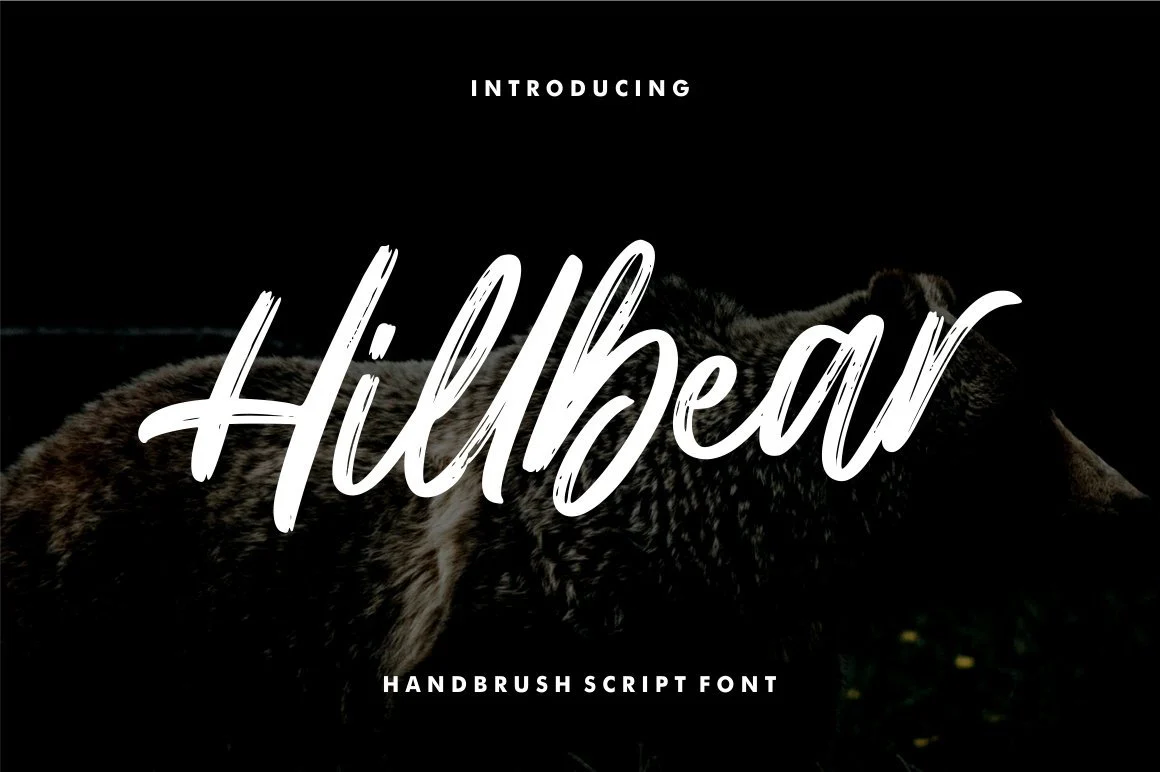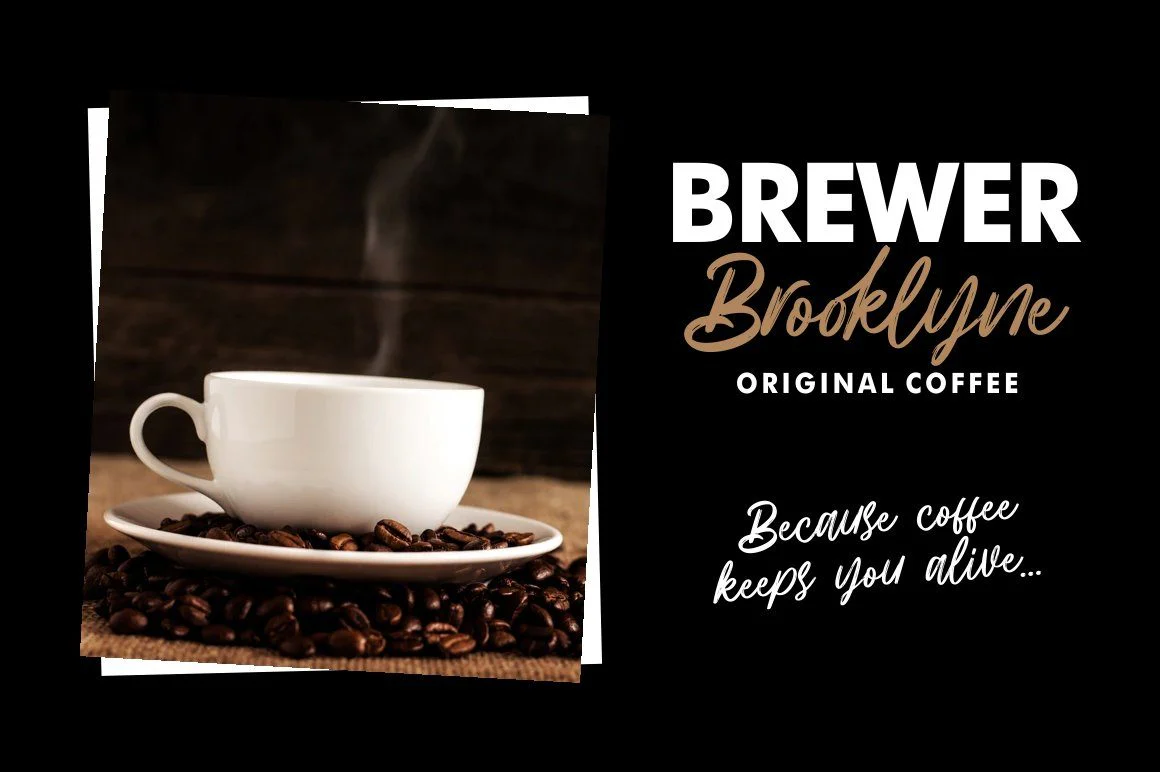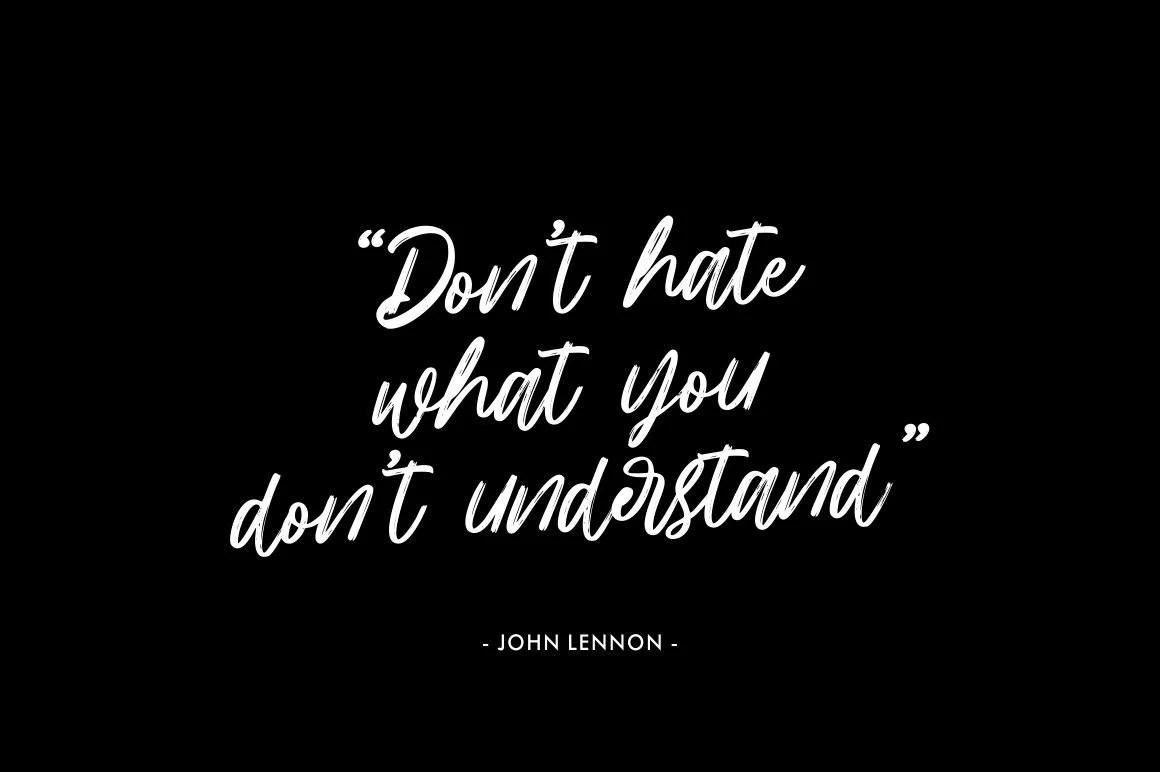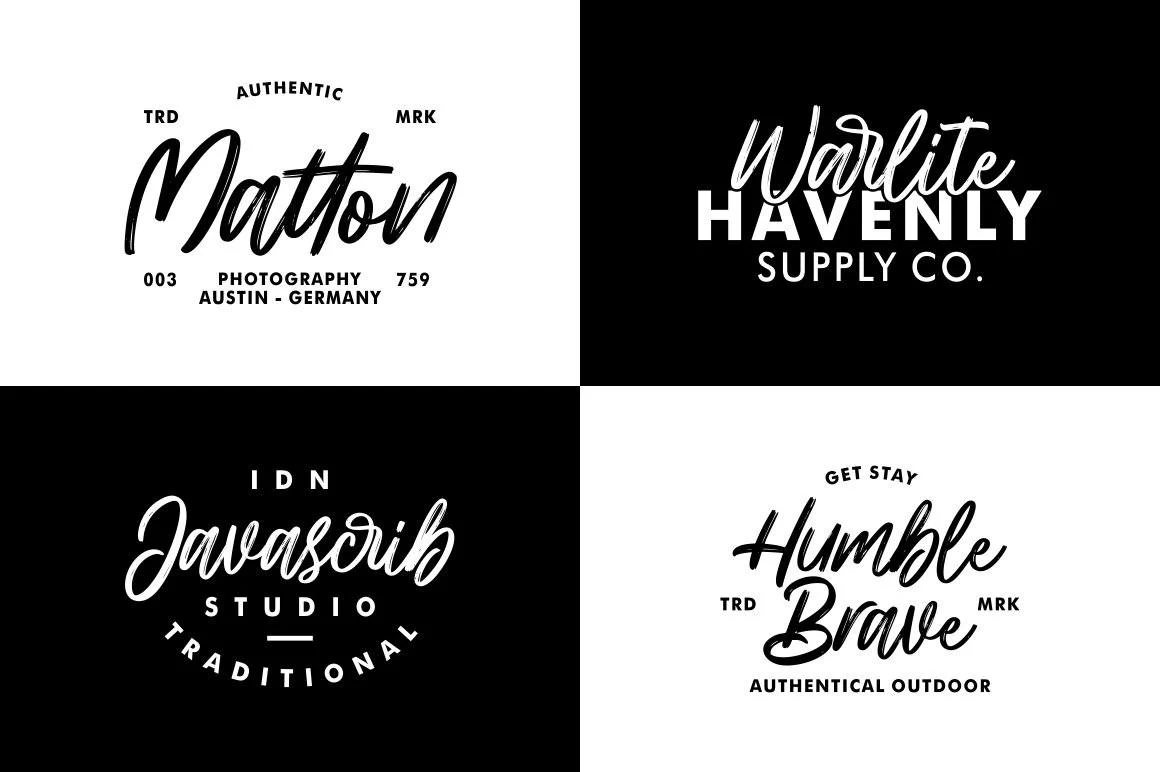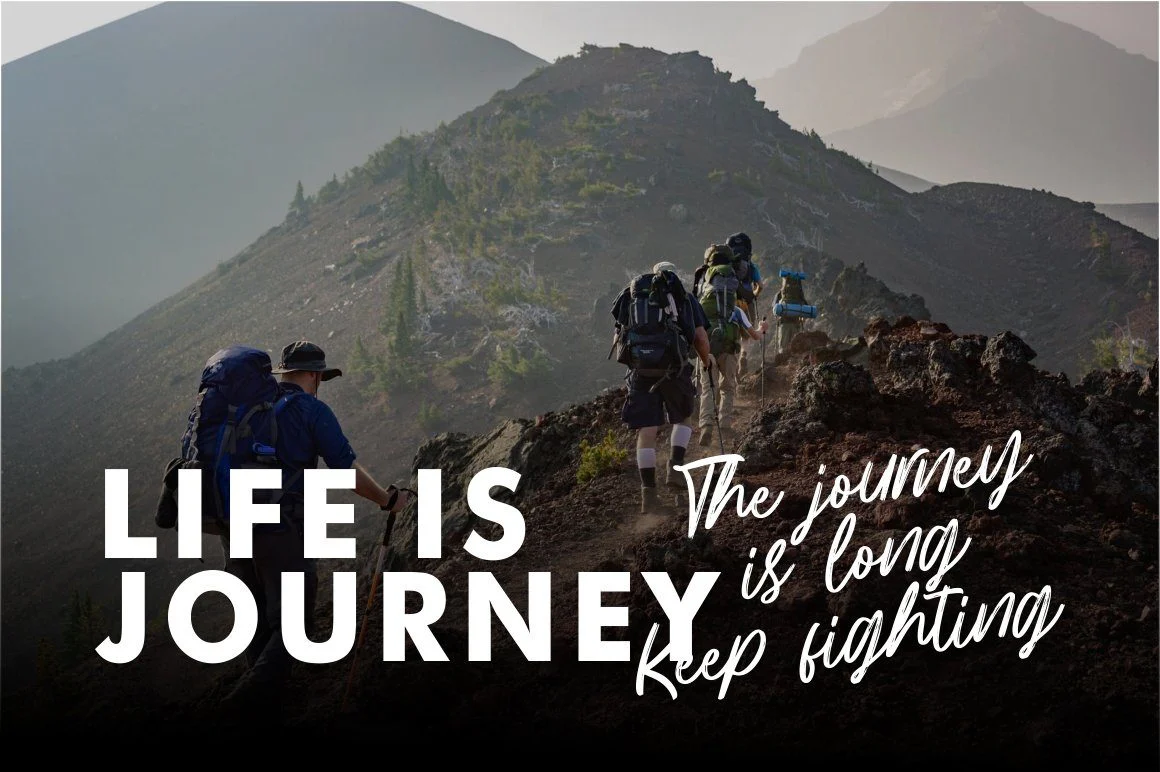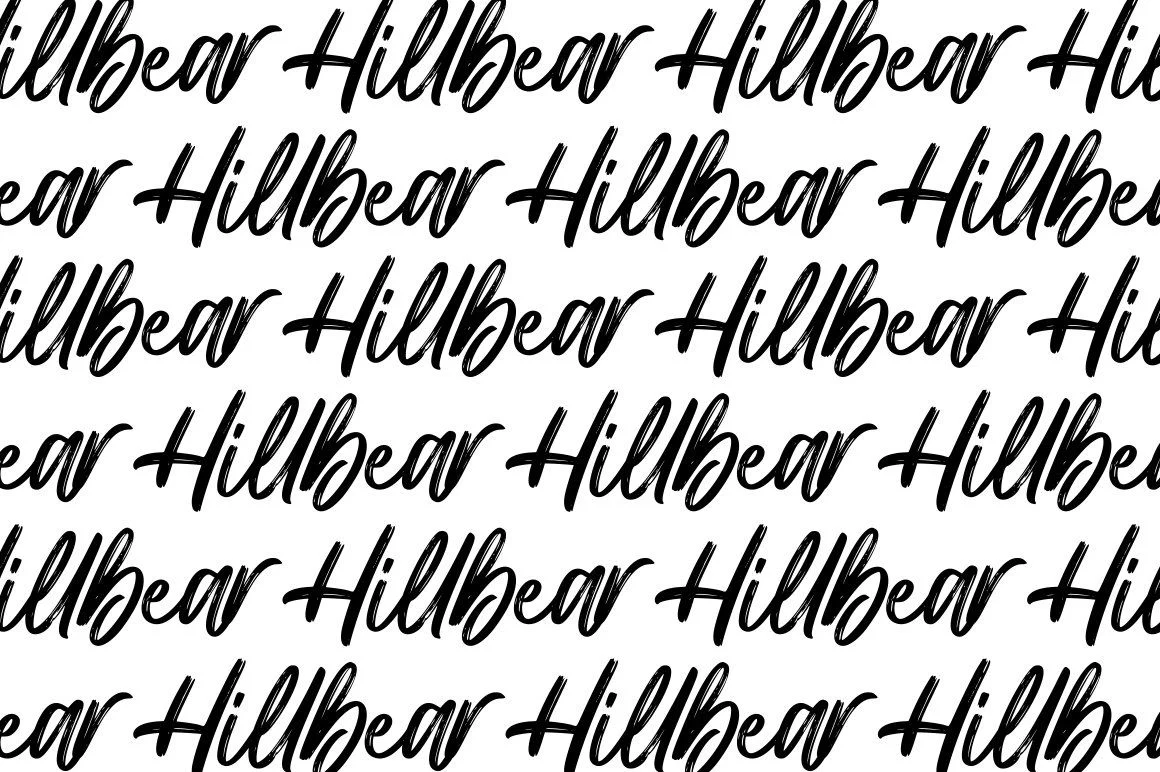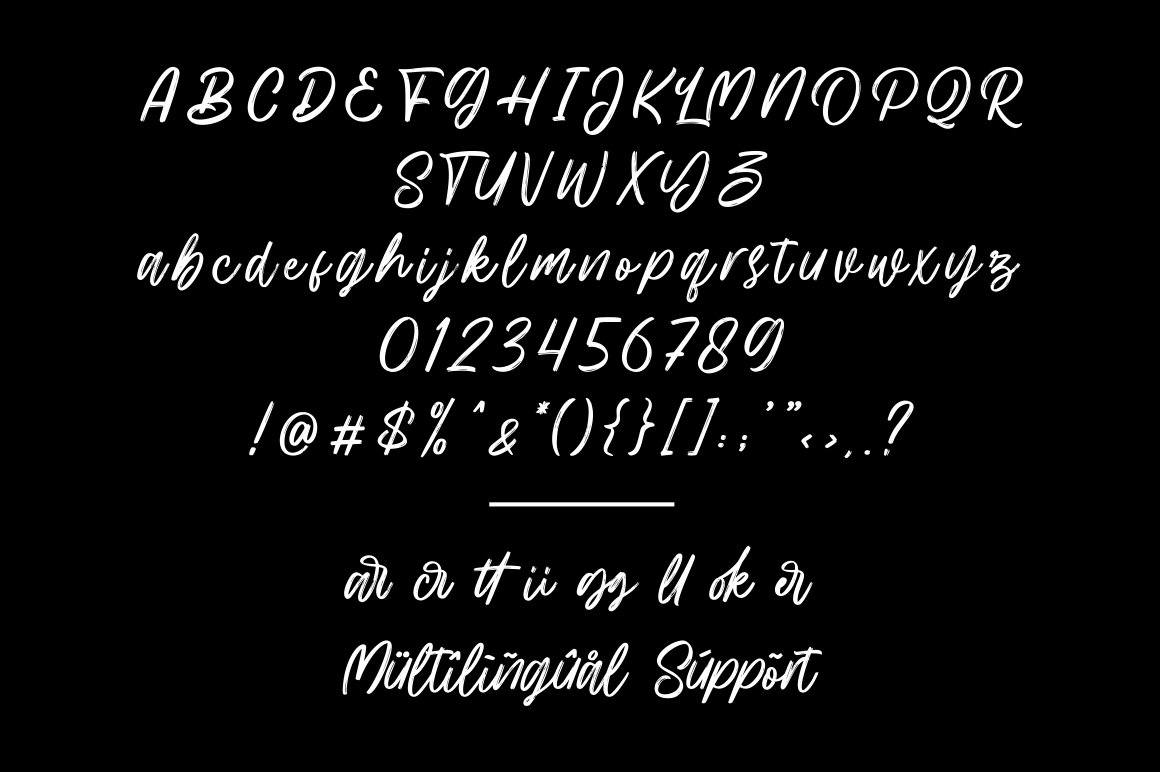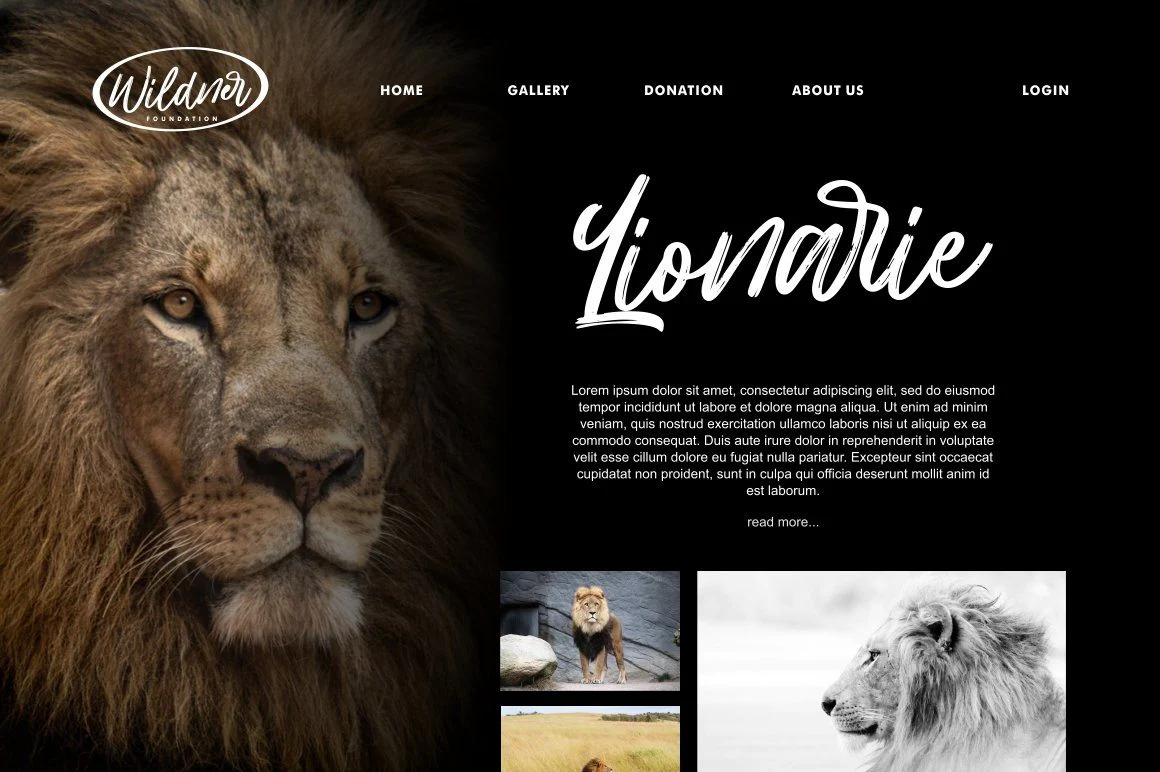
Hillbear - Handbrush Script Font
Introducing Hillbear - Handbrush Script Font
Hillbear is a font script that has a brush stroke style with high quality font design. Â
We are very careful in making this font, because we include casual, elegant, and artistic elements.
This Font Template contains Modern, Creative, Professional and Unique Concept.
Introducing Hillbear - Handbrush Script Font
Hillbear is a font script that has a brush stroke style with high quality font design. Â
We are very careful in making this font, because we include casual, elegant, and artistic elements.
This Font Template contains Modern, Creative, Professional and Unique Concept.